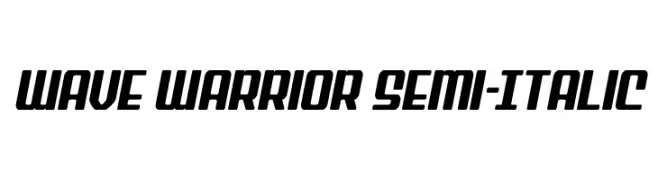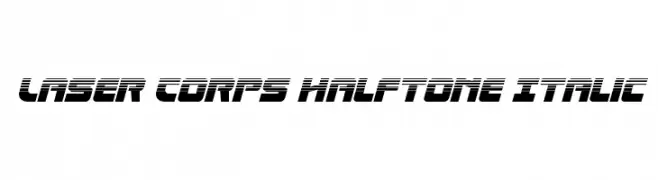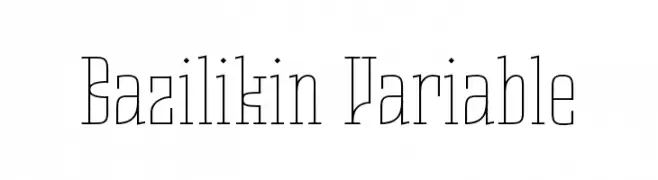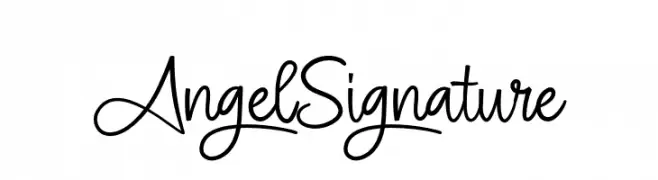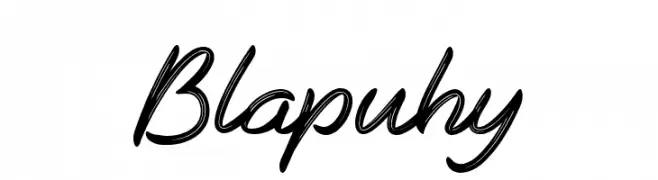
A bold, semi-italic font with a dynamic and modern style.
A bold, italicized font with a futuristic halftone effect and geometric structure.
A bold, dynamic script font with a modern, handwritten style.
A modern, high-contrast font with elongated, narrow characters and elegant serifs.
A bold, italic serif font with a dynamic and elegant style.
A cursive, handwritten-style font with elegant, flowing characters.
A modern, extra-light italic monospaced font with a sleek and uniform appearance.
A graceful and fluid script font with elegant curves and delicate flourishes.
A graceful, cursive script font with flowing, interconnected letters.
A fluid and elegant script font with a handwritten appearance.